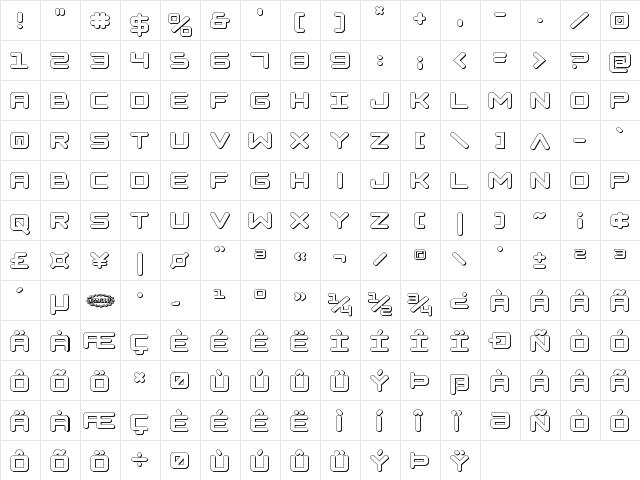
NGC 292 3D Regular
Design Context for NGC 292 3D Typeface
NGC 292 3D is a composed and adaptable typeface that performs quietly and consistently across a wide range of design contexts.